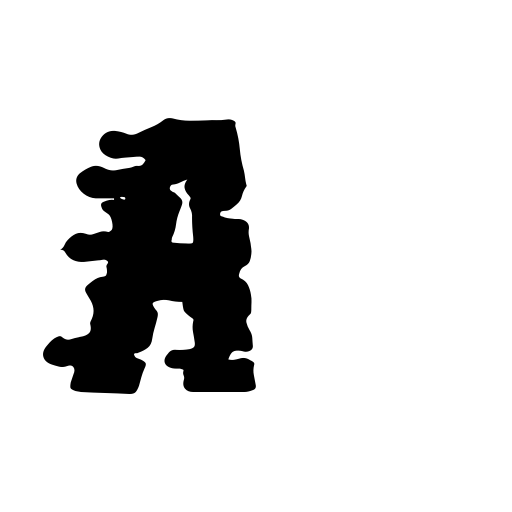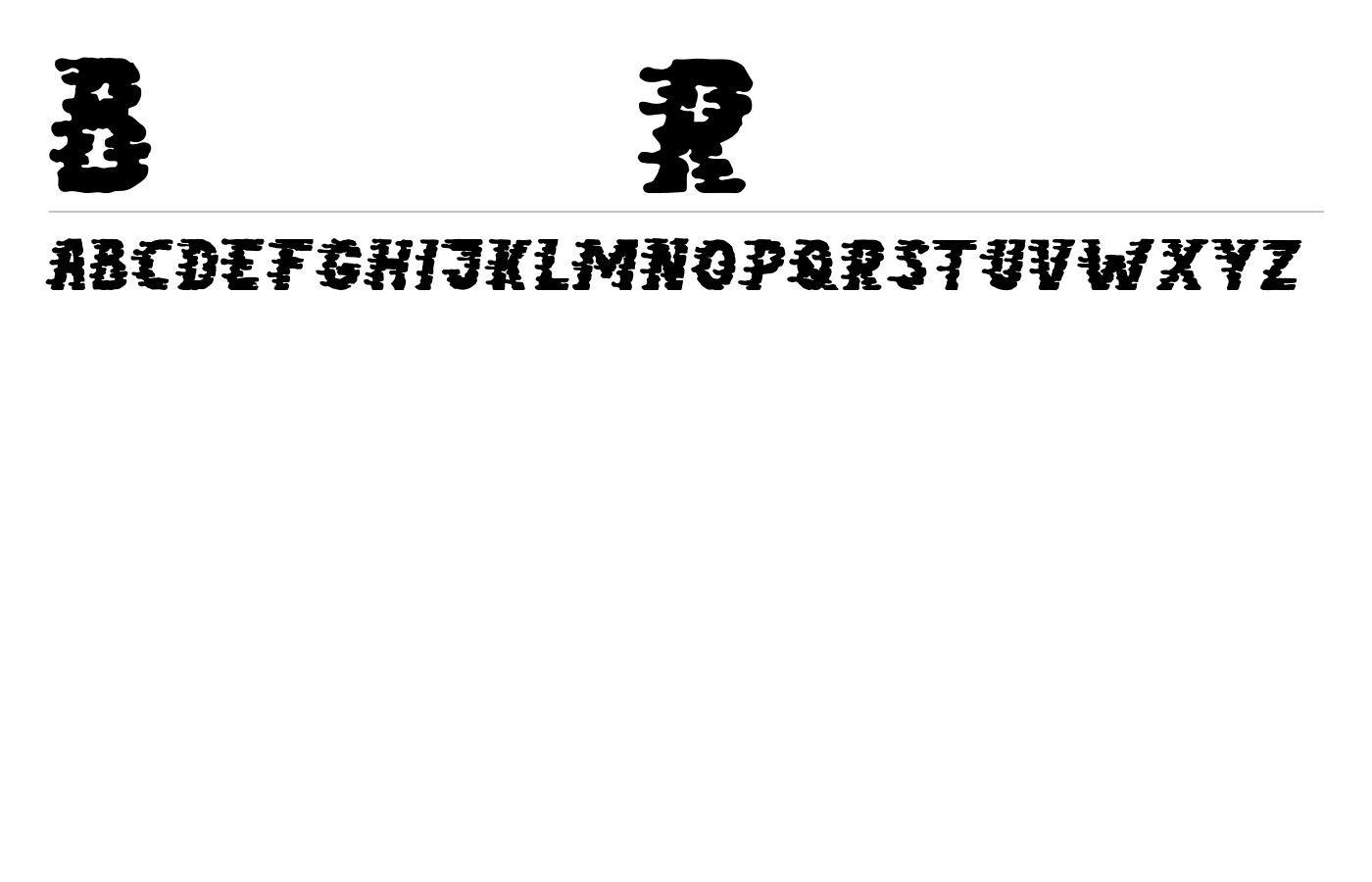
Brada Riders is a bold, condensed slab serif font with a rough, textured appearance that gives it a rugged, vintage vibe. Its heavy weight and uneven edges evoke a handcrafted, distressed feel, making it perfect for designs that want to convey toughness and character. This font works well in logos, posters, and packaging where a bold, standout statement with an authentic, weathered look is desired.
Brada Riders Font
About Brada Riders Font
| Font family | Brada Riders Font |
| Designer | Farul Arjianto |